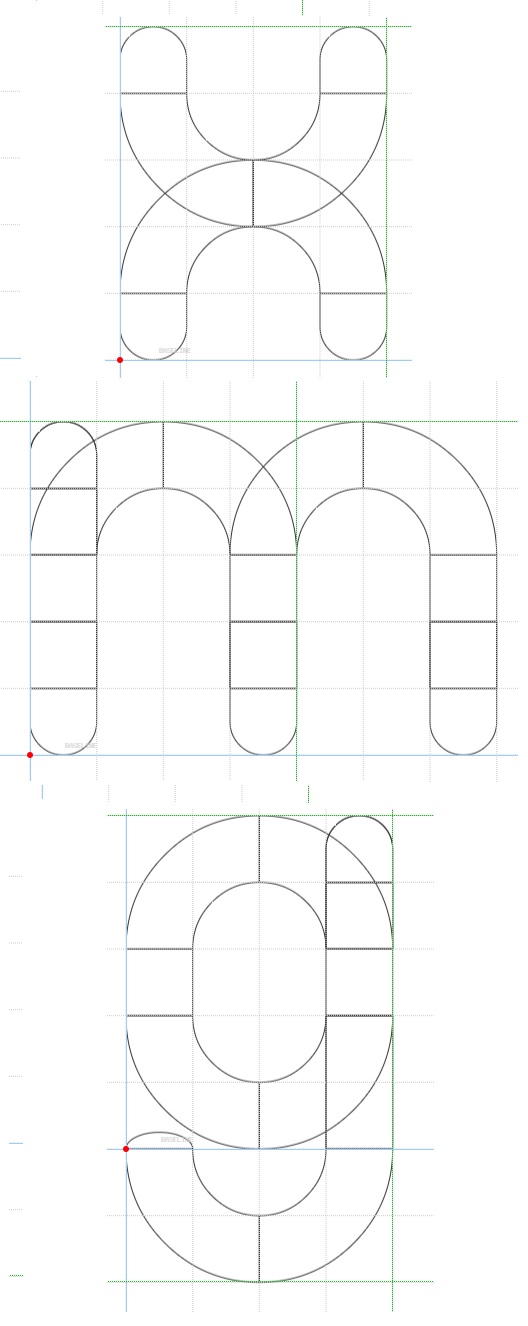
Built on a small grid, uses real curves...
All lowercase for now...
Nice job on this one. The distorted-looking numbers and roundness of it all reminds me of Platelet.
Added accents...